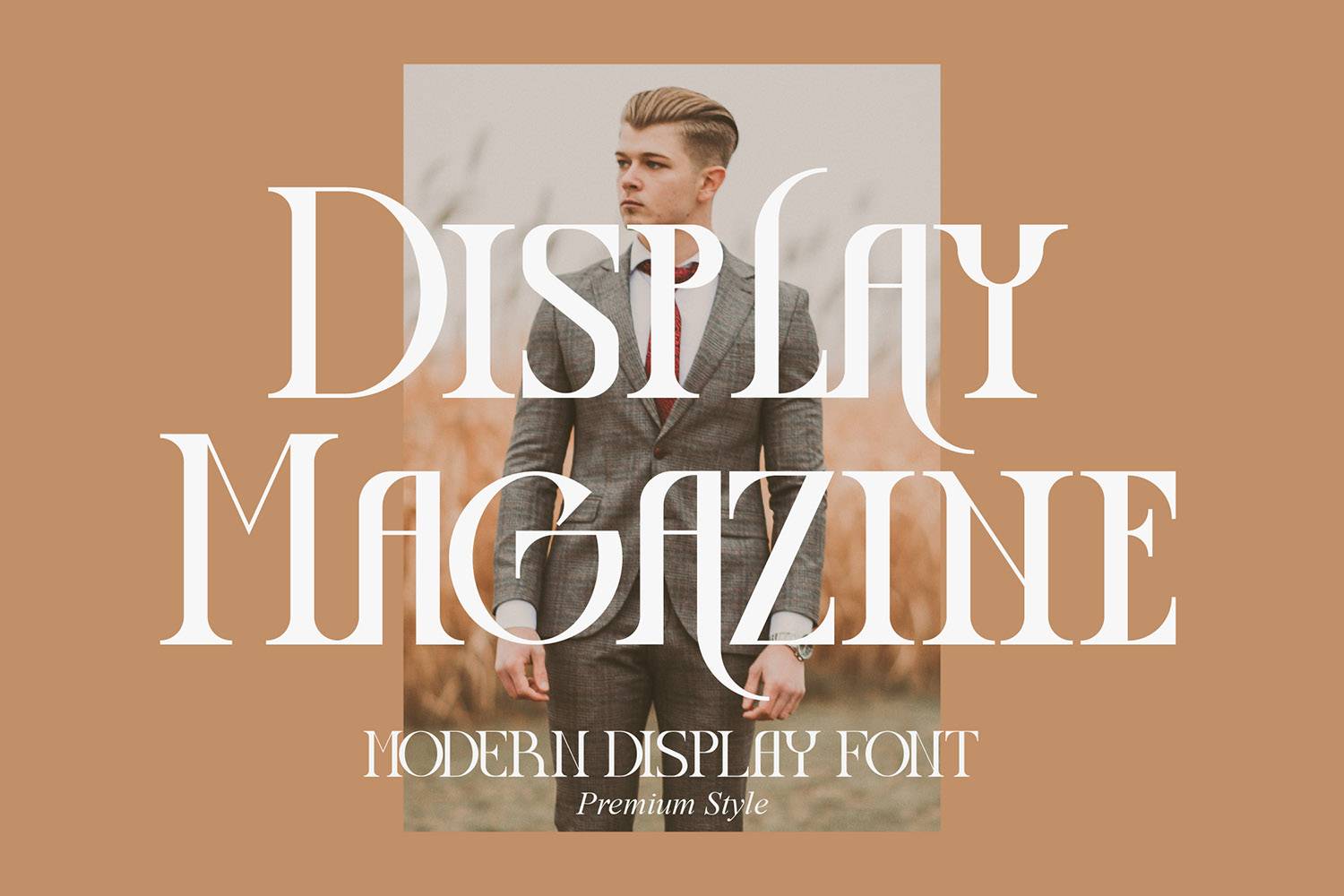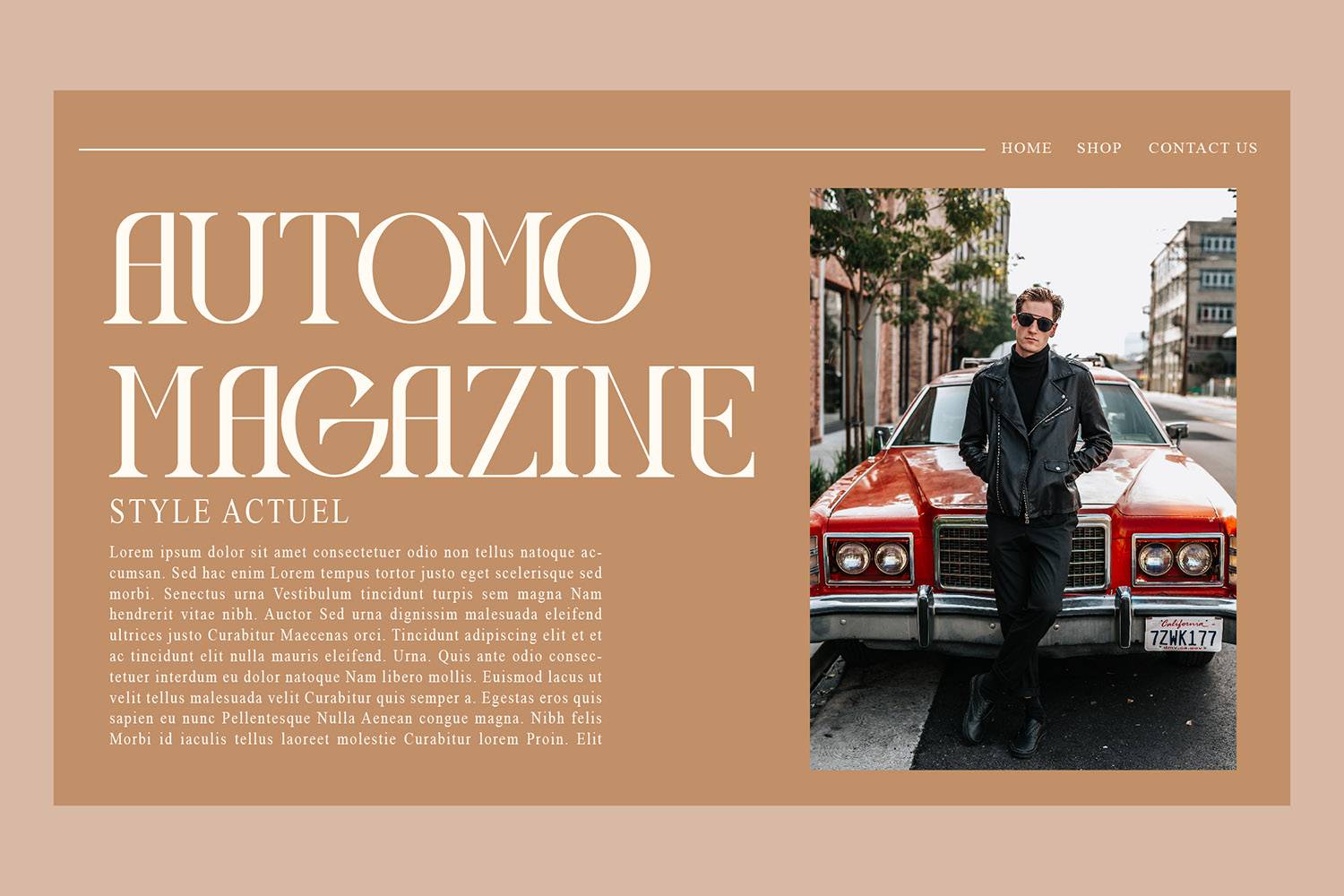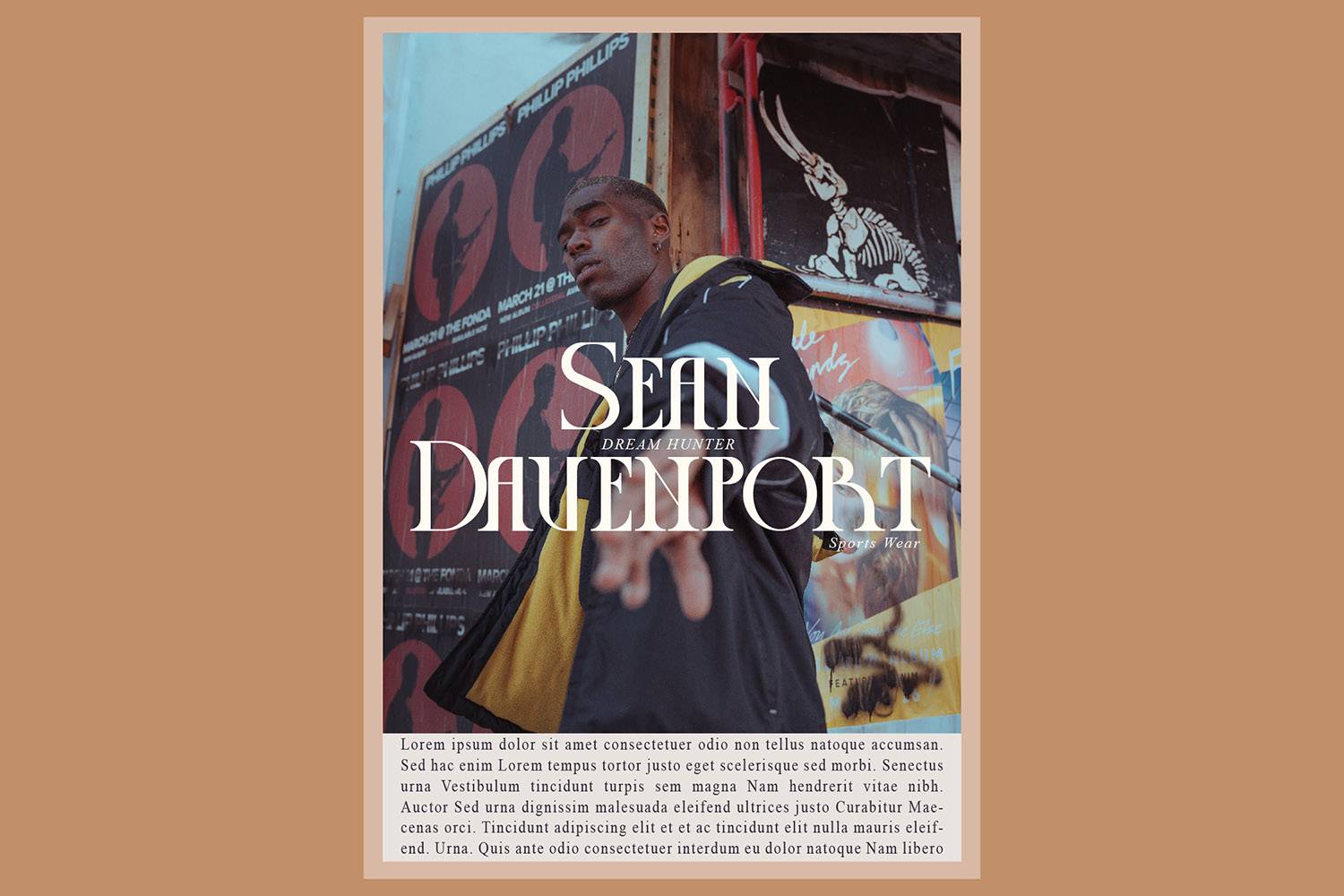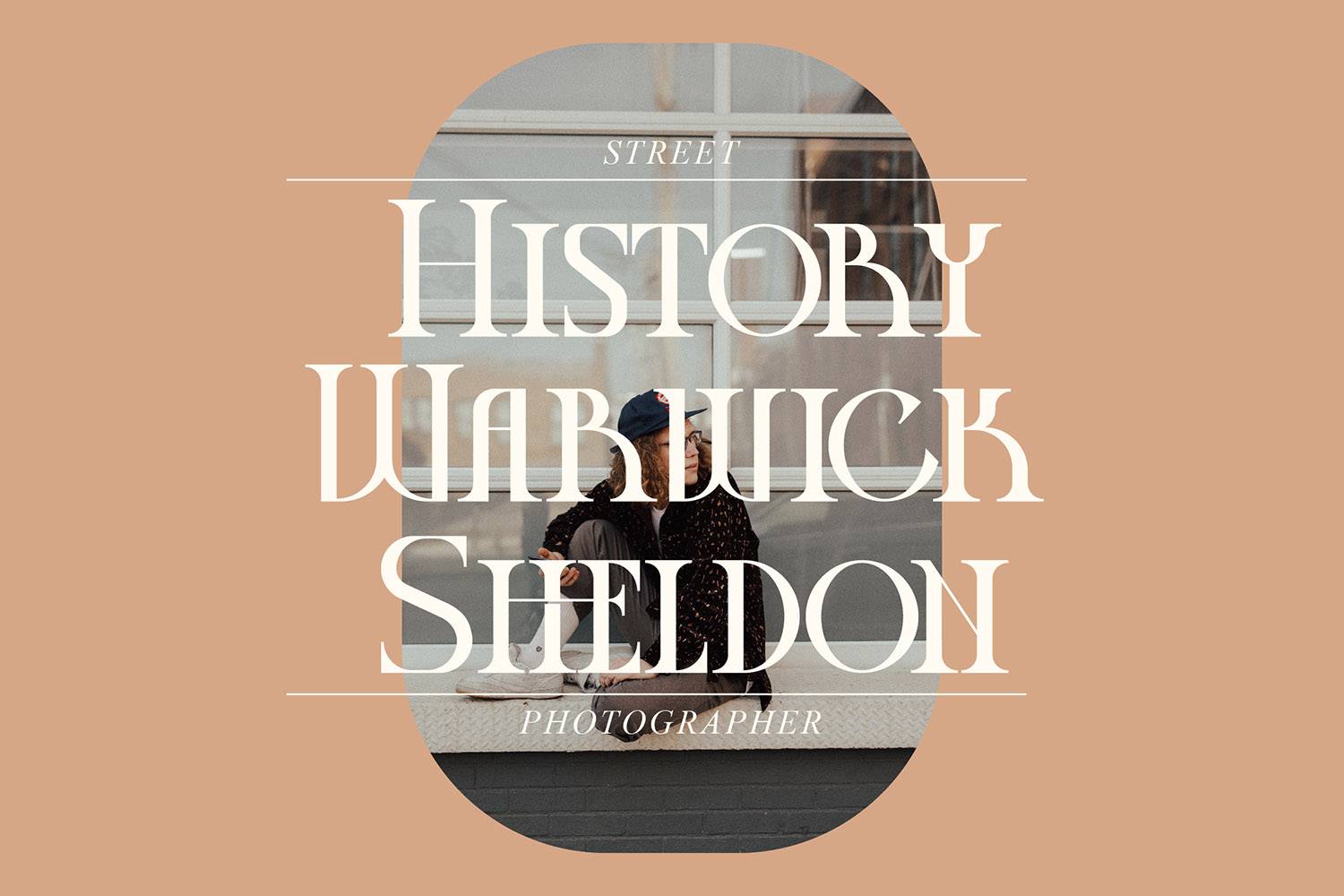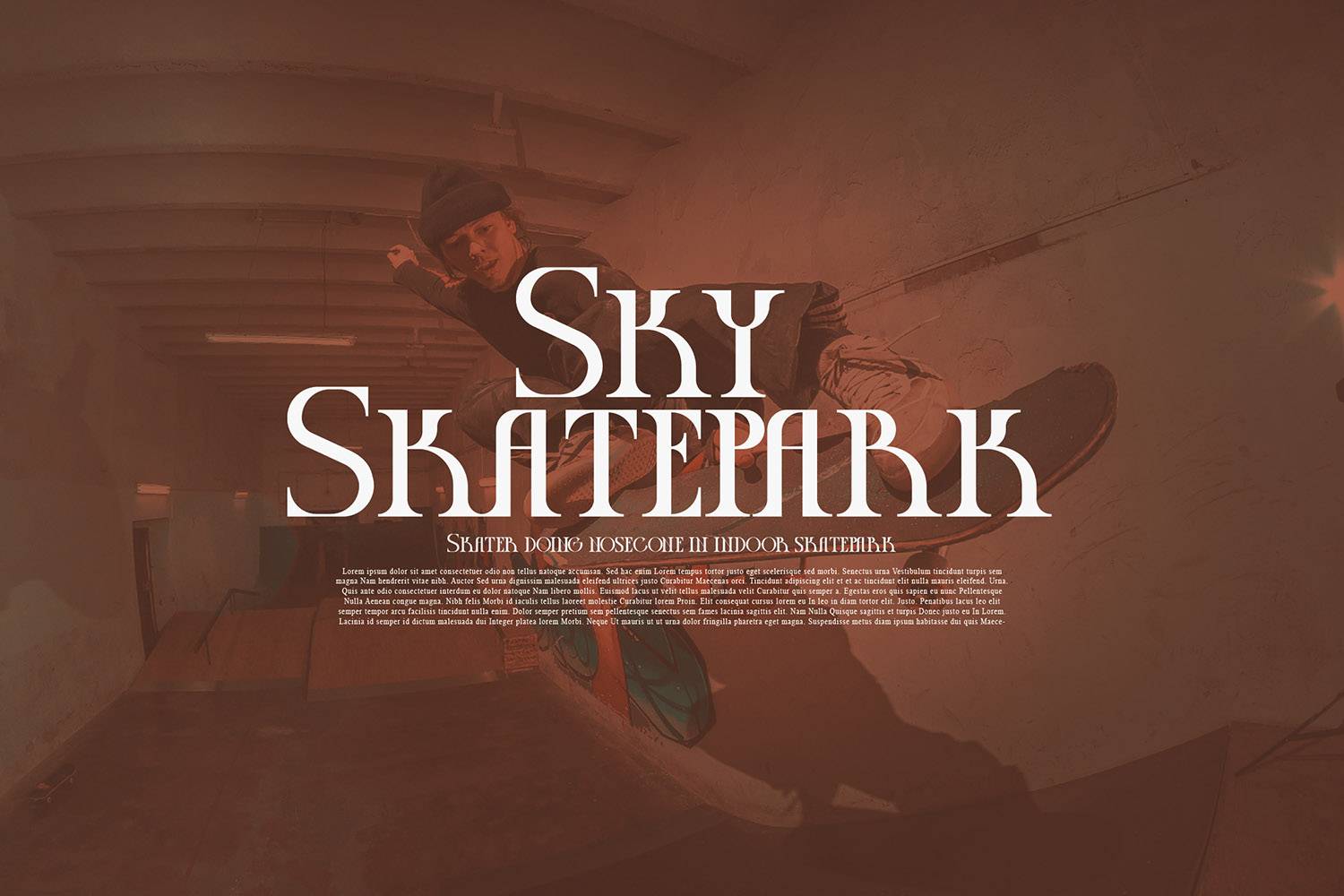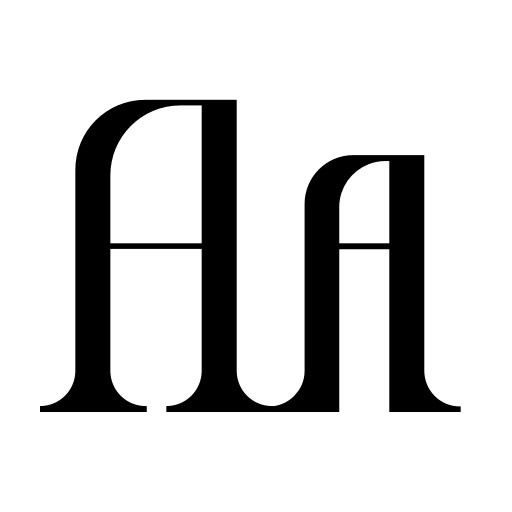
Display Magazine Font is a stylish serif typeface with a strong contrast between thick and thin strokes, giving it an elegant and sophisticated look. Its tall, narrow letterforms combined with unique decorative details make it perfect for high-end branding, editorial headlines, and luxurious magazine covers where a refined and modern vintage feel is desired. This font stands out best in large display settings, adding a sense of exclusivity and artistic flair.